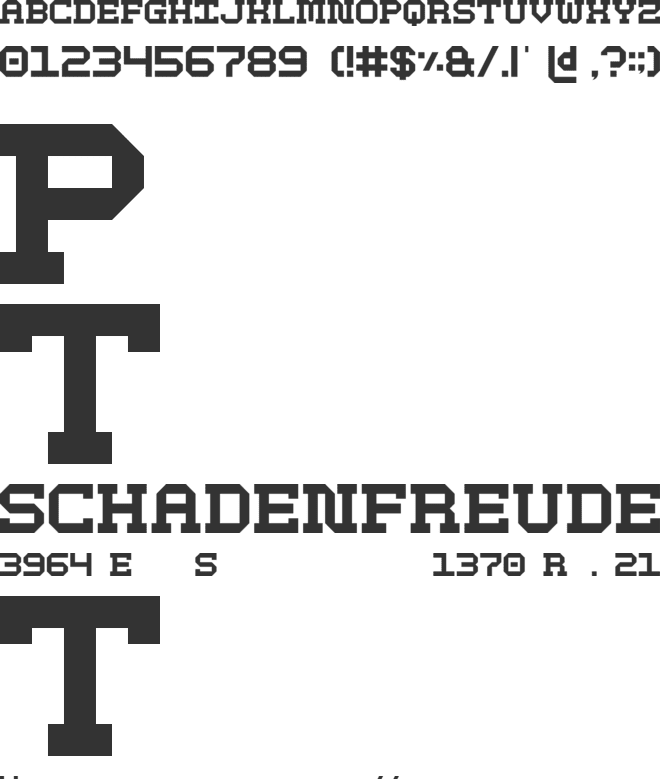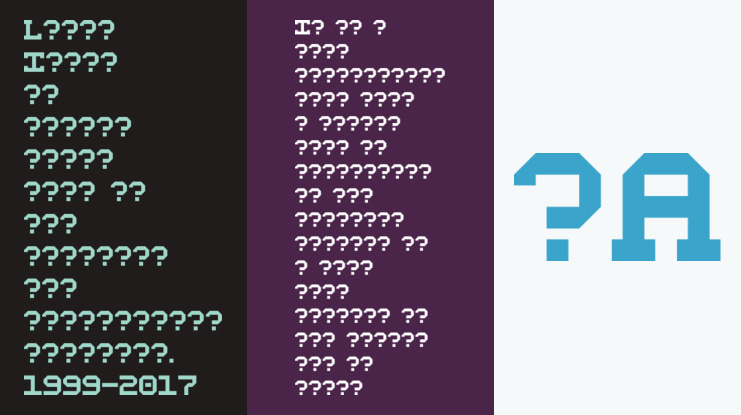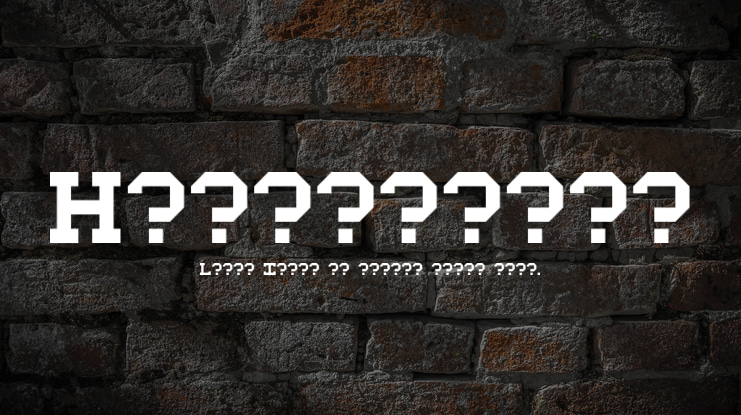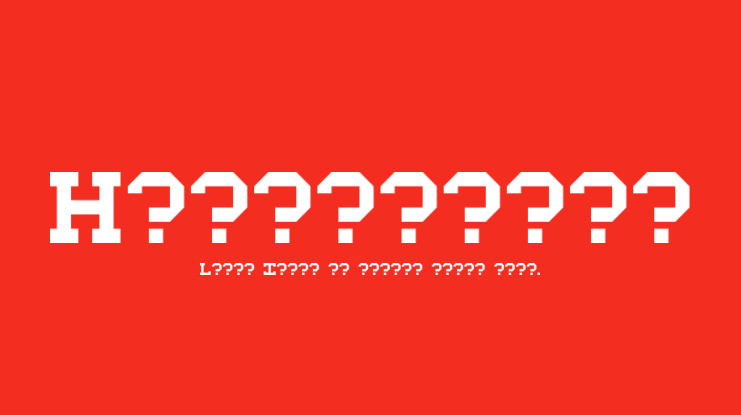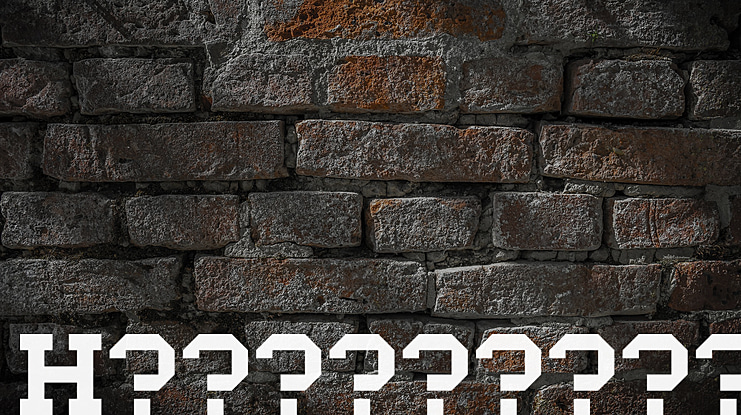
Hammermart Font
UPPERCASE ONLY! By request, a small, sporty, polygonal, uppercase serif font. This design seems best for signage, woodcuts, and the like. It carries a bit of a "sports" look too. The numerals and symbols are sans serif to make them look more modern. The asterisk is a hammer. Supports several languages!